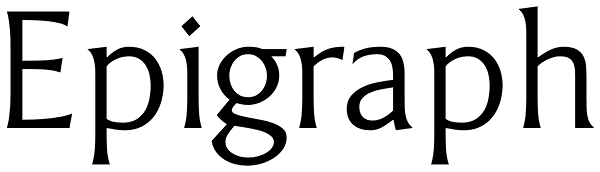
Epigraph
Epigraph is a font which has role models in the lapidary letter. The glyphs doesn't have serifs, but it has humanistic qualities and the nucleus of a serif. The differences between thick and thin stokes are small, and the font design is unobtrusive...